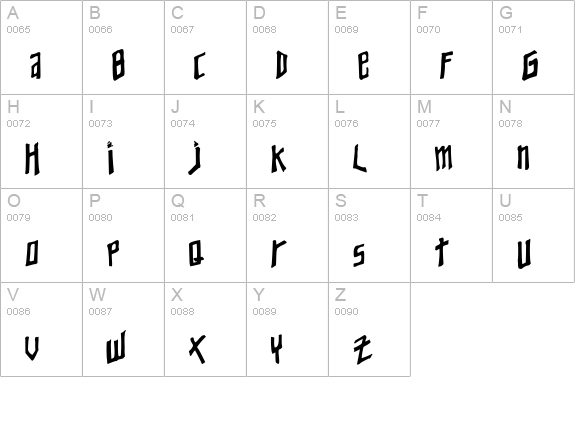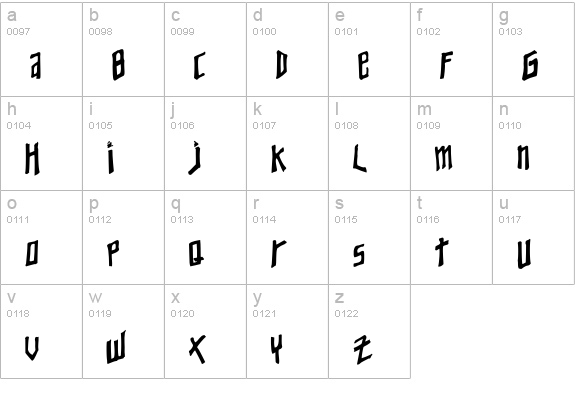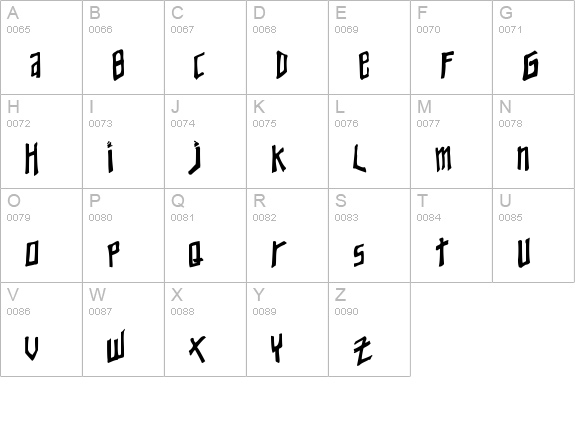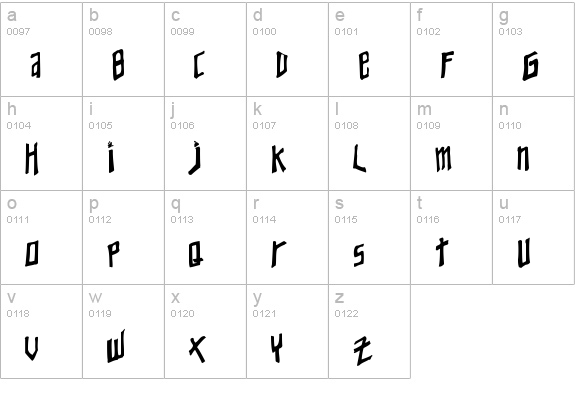
YoungZaphod Font Details
YoungZaphod is a modern and stylish font that exudes youthfulness and creativity. With its bold lines and unique shapes, this font is perfect for capturing attention and making a statement. Whether you're designing a poster, logo, or website, YoungZaphod will add a touch of flair to your project. The best part? YoungZaphod is available for free at FontsMarket.com. You can easily download this font and start using it in your designs right away. Don't miss out on the opportunity to add a fresh and trendy look to your work with YoungZaphod!